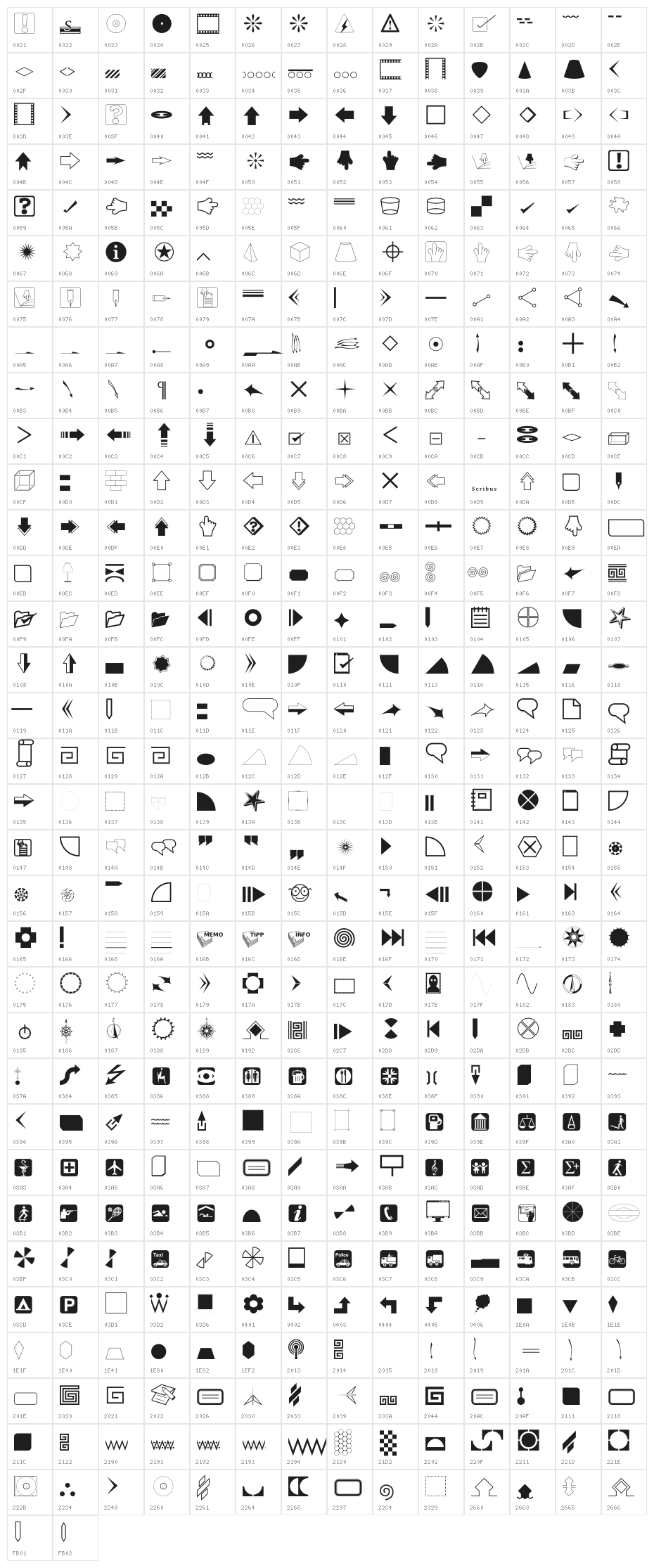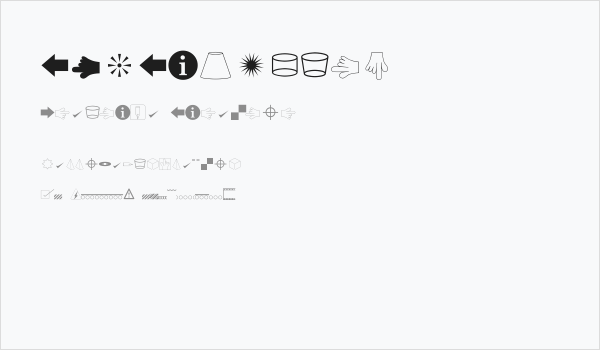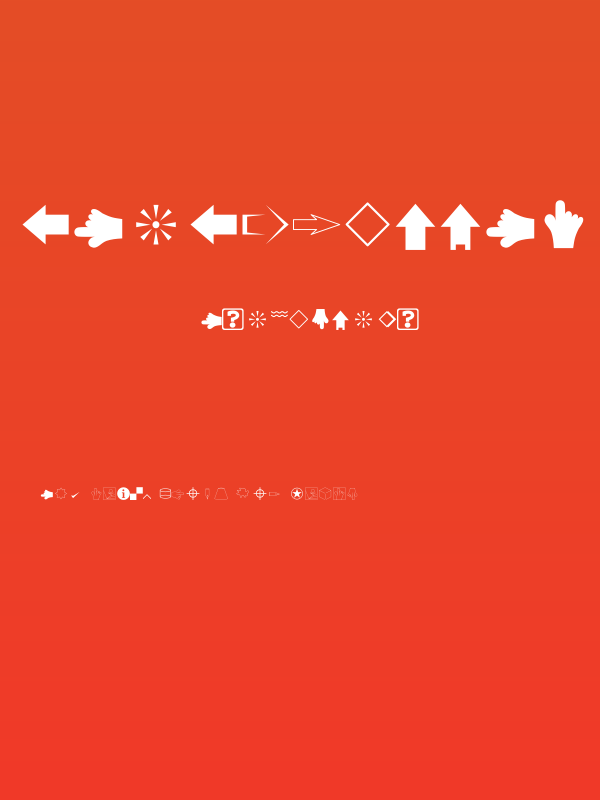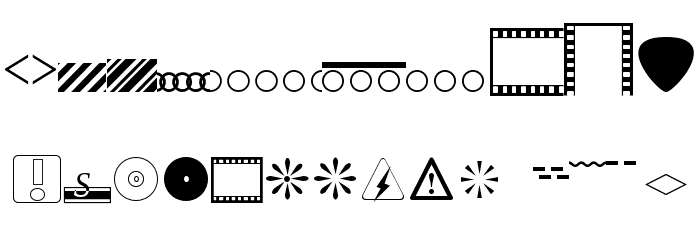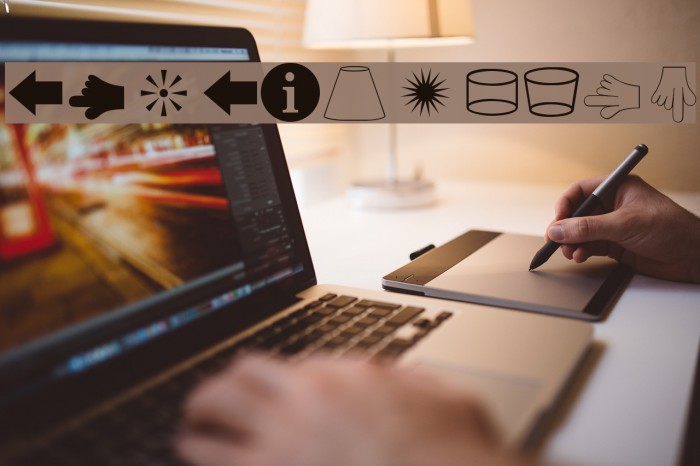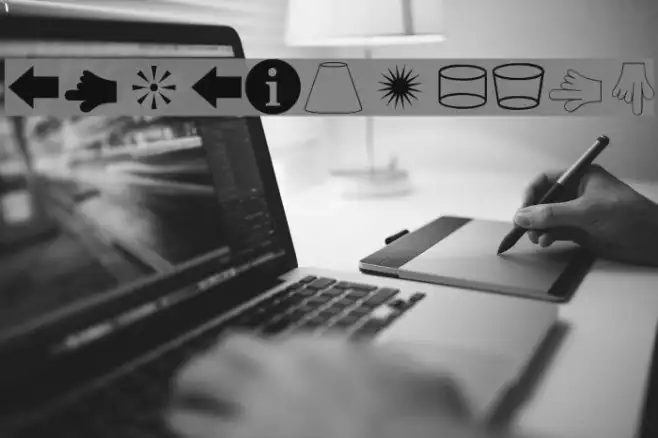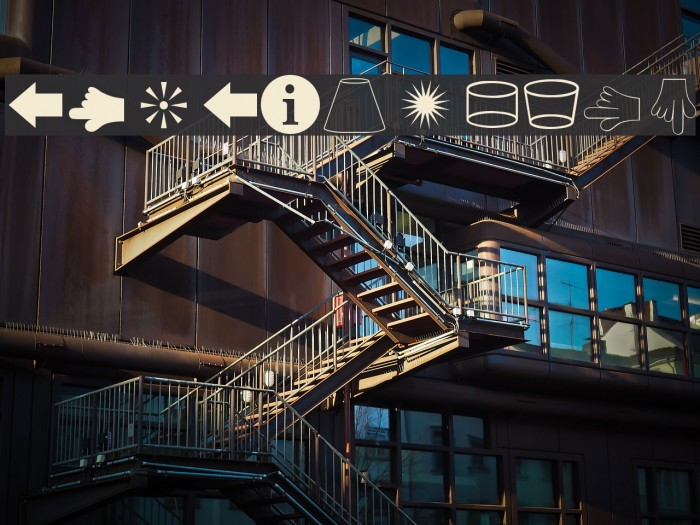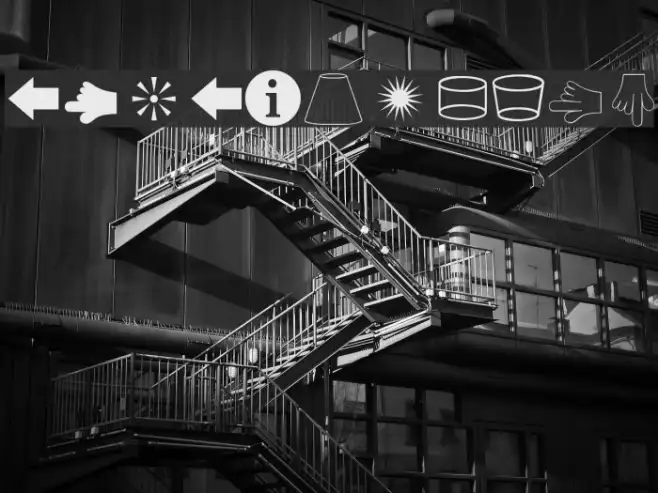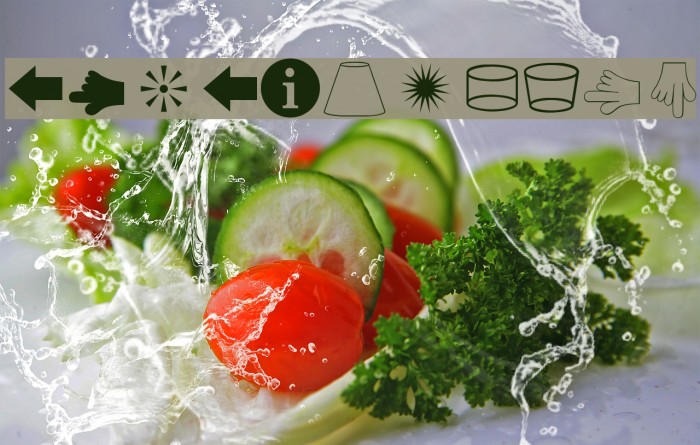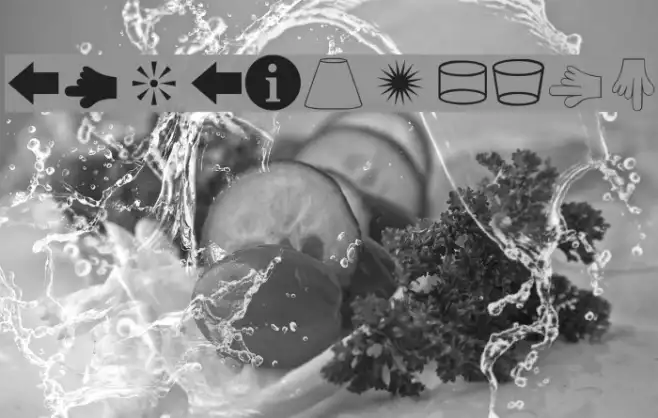
DTPDingbats Font
DTPDingbats Description
This collection of symbols features a diverse array of icons, including arrows, geometric shapes, hands, and various informational symbols. The designs are bold and clear, making them suitable for a variety of uses. The icons include directional arrows, check marks, warning symbols, and other miscellaneous shapes. Each symbol is distinct, with a mix of filled and outlined styles, providing versatility in design applications. The set is ideal for enhancing visual communication in documents, presentations, or digital interfaces, offering a playful yet informative touch.
| Use Case | Icons, Infographics, User Interfaces |
| Proposed Projects | Ideal for infographics, user interface design, educational materials, and creative presentations. |